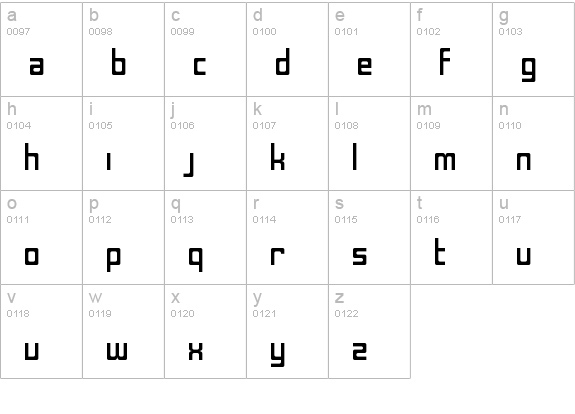
SF Laundromatic Font Details
Introducing SF Laundromatic, an extraordinary font that combines clean lines with a touch of whimsy, perfect for adding a playful yet modern touch to your designs. With its unique letterforms and charming style, SF Laundromatic captures the essence of carefree creativity, effortlessly drawing attention and making a lasting impression. This versatile font is suitable for a wide range of design projects, from branding and packaging to invitations and social media graphics. Its legibility and distinctive personality make it ideal for headlines, logos, and any design element that requires an eye-catching impact. What sets SF Laundromatic apart is its availability for free download at FontsMarket.com. Yes, you read that right – this exceptional font can be yours at no cost. Whether you're a professional designer looking to add a fresh font to your collection or a hobbyist seeking to spruce up your personal projects, SF Laundromatic offers an exciting opportunity to elevate your creative endeavors without breaking the bank. And don't let the fact that it's free fool you – SF Laundromatic is meticulously crafted with attention to detail and precision. Each letterform is thoughtfully designed to ensure readability and aesthetic appeal, resulting in a font that is not only visually pleasing but also highly functional. So why wait? Embrace the freedom of creativity and download SF Laundromatic today at FontsMarket.com. Discover the endless possibilities this font offers and let your imagination run wild. Stand out from the crowd, make a statement, and leave a lasting impression with SF Laundromatic – the free font that truly delivers on style and quality.